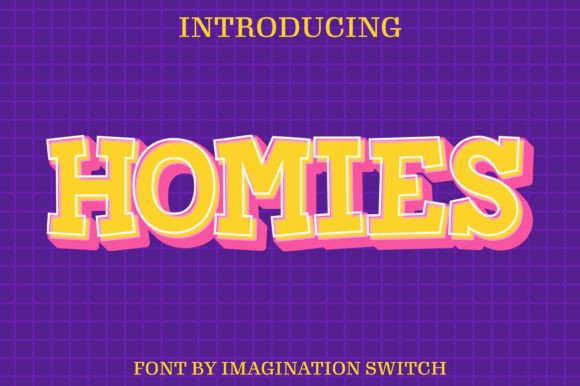
Introducing Homies Font - Your passage to a spirited world of colors and creativity! Unleash your artistic flair with this collection of enchanting fonts, expertly crafted to elevate your DIY projects and digital designs.
Immerse yourself in a kaleidoscope of hues brought to life by Imagination Switch. Homies Font, with its vibrant personality, will ignite your imagination and bring a burst of life to your next creation. Say goodbye to ordinary fonts and embrace a typography haven where colors dance and characters leap off the page!
With a complete repertoire of uppercase, lowercase, and numeric characters, Homies Font grants you limitless possibilities. Explore an array of colors that ignite passion and evoke emotions. Craft eye-catching posters, personalized greeting cards, or unique t-shirt designs that will leave a lasting impression.
Unlock your creative potential and embark on a journey of self-expression. Homies Font is the perfect companion for DIY enthusiasts, graphic designers, and those who dare to dream in vibrant colors. Its versatility knows no bounds, seamlessly adaptable to logos, social media posts, website designs, and even eye-popping signage.